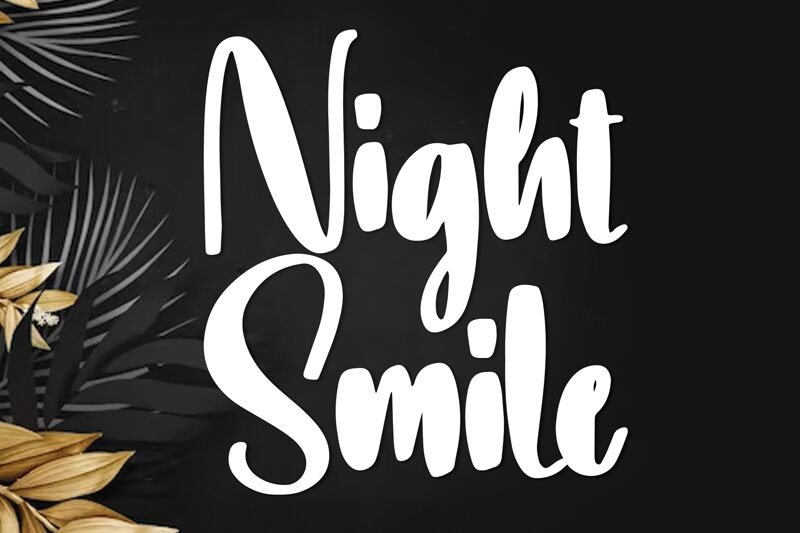
Night Smile
Night Smile is a captivating handwritten font created by the talented designer, Scratchones. This font exudes a warm, whimsical charm, with its organic, flowing strokes and playful, yet elegant aesthetic. The fluid, script-like letterforms convey a sense of movement and spontaneity, evoking a feeling of casual sophistication.
The Night Smile font's distinct personality makes it a versatile choice for a wide range of design projects. Its expressive and dynamic style lends itself beautifully to branding, logos, and editorial layouts, adding a touch of personality and character. Furthermore, the font's excellent legibility and readability make it an ideal selection for web design, product packaging, and even wedding stationery, where its inviting, handcrafted appearance can truly shine.